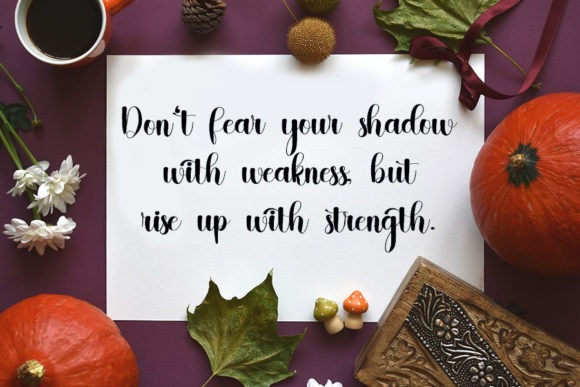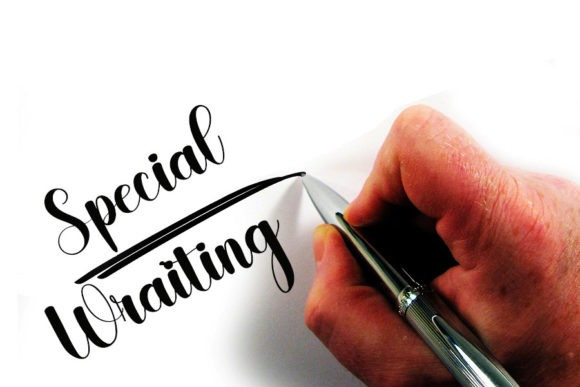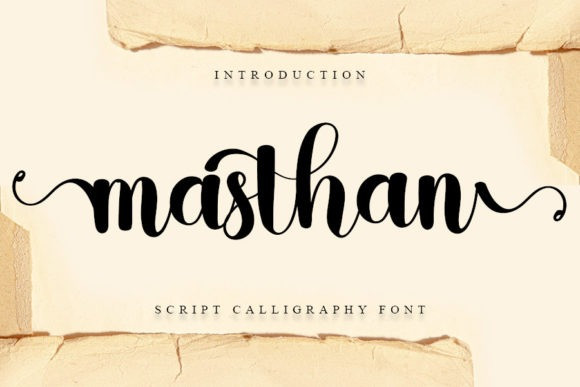
Masthan Font
Masthan Font is an enchanting script font. This delicate script has a wide spectrum of applications ranging from greeting cards to headlines and logos. Masthan is PUA encoded which means you can access all glyphs and swashes with ease!